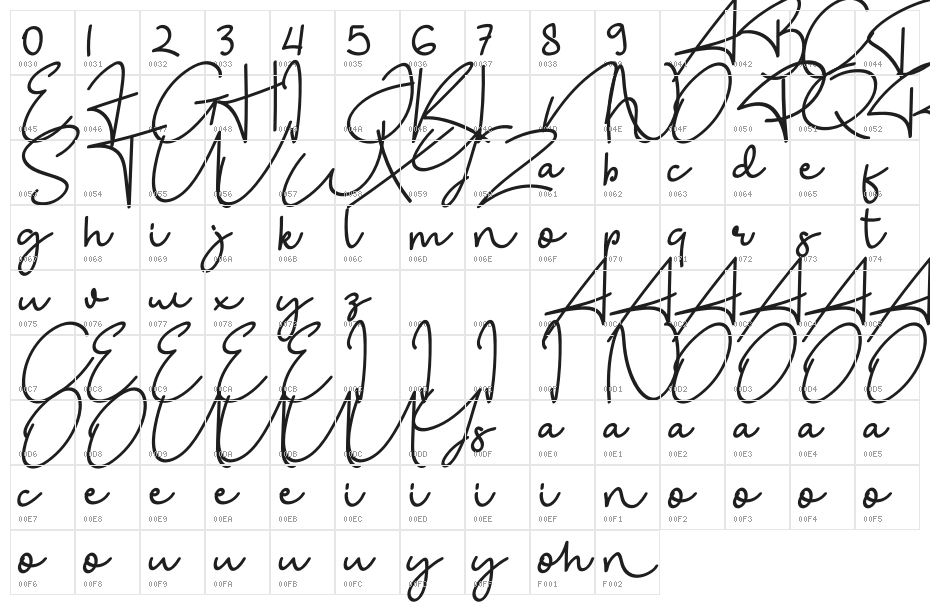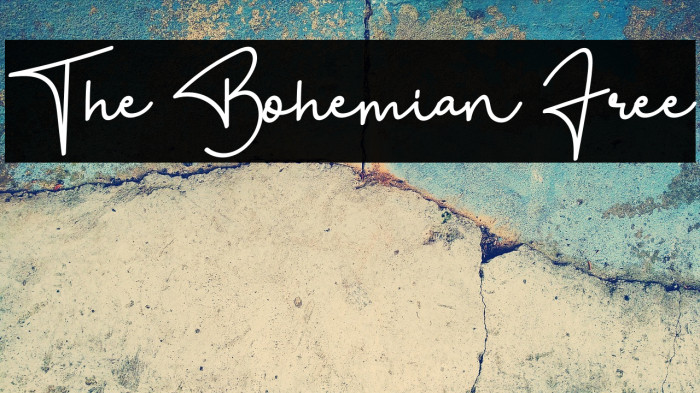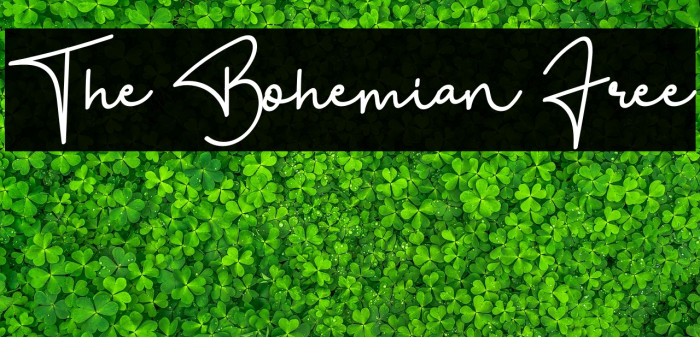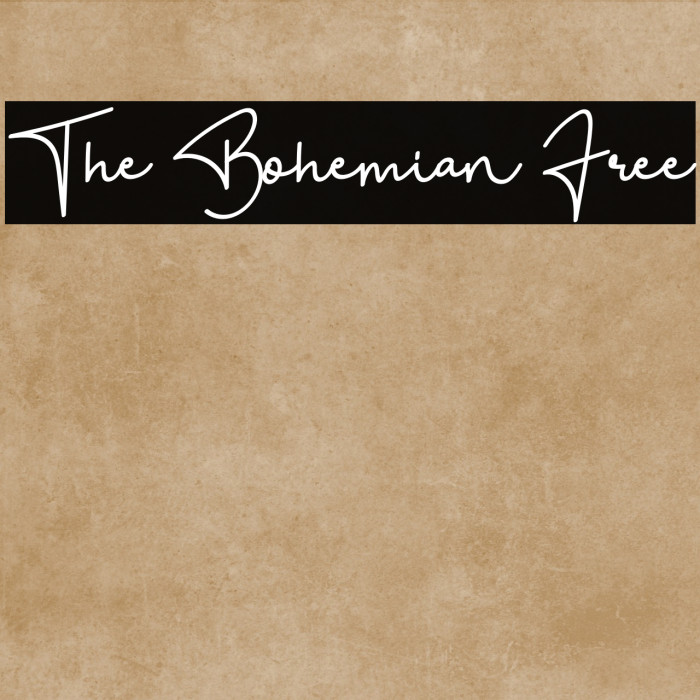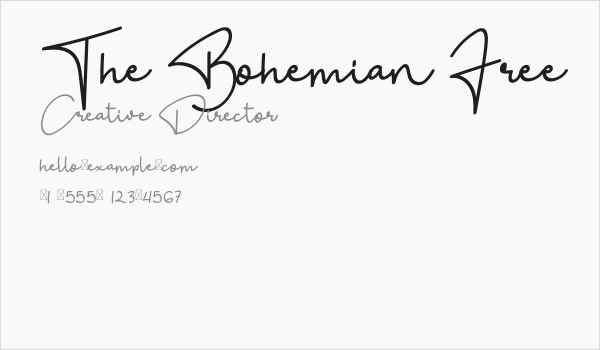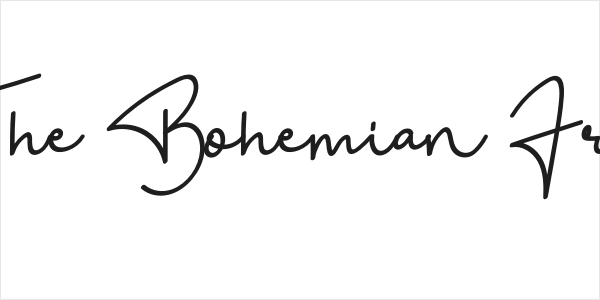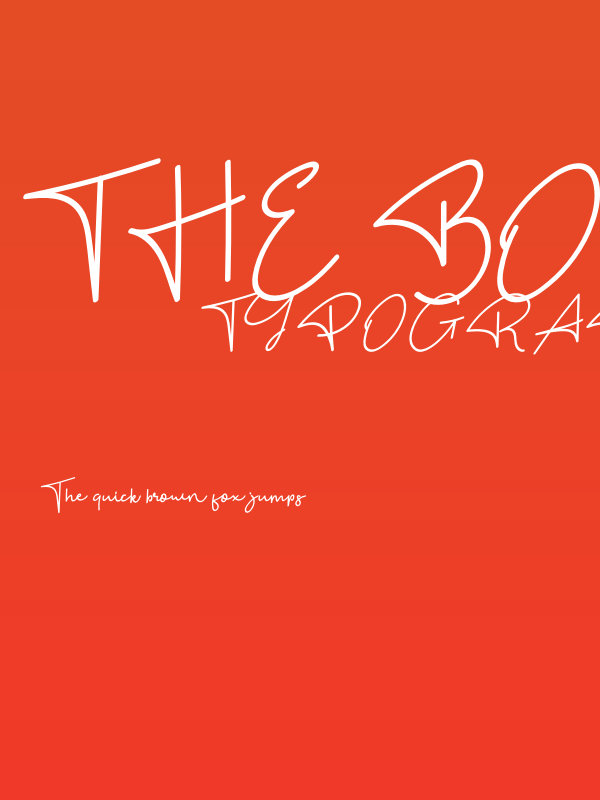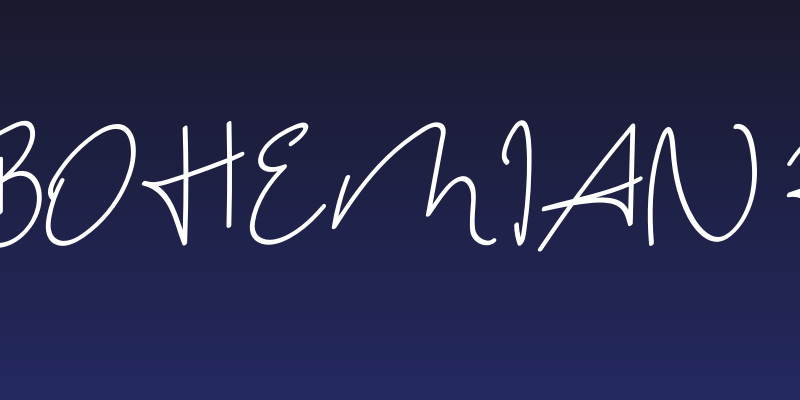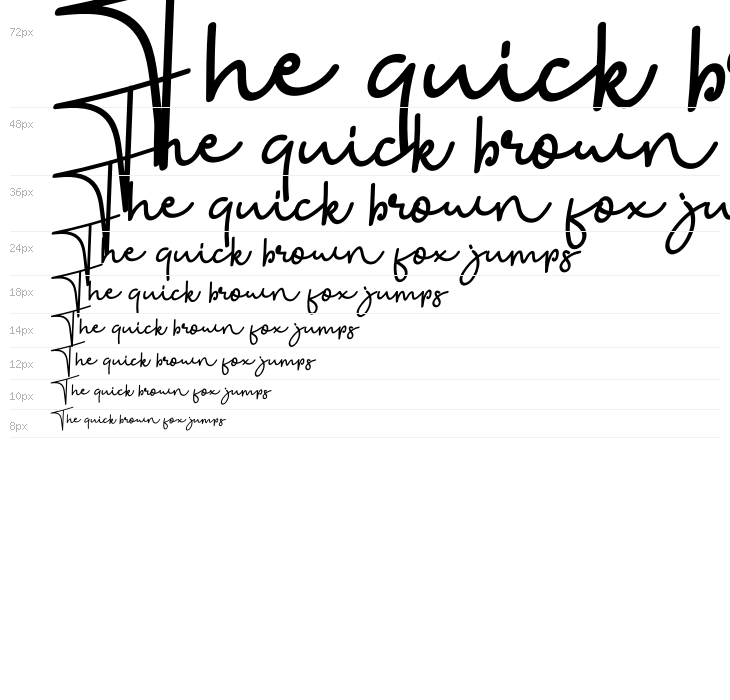
The Bohemian Free Font
The Bohemian Free Description
This font features a whimsical and free-spirited design, characterized by its flowing, cursive script. The uppercase letters are elegantly crafted with a slight slant, giving them a dynamic and lively appearance. The lowercase letters maintain a consistent style, with smooth curves and loops that enhance readability while retaining a playful aesthetic. The numerals are bold and clear, ensuring they stand out in any composition. The overall design is reminiscent of handwritten notes, making it perfect for projects that require a personal touch. The absence of special characters suggests a focus on simplicity and elegance.
| Proposed Projects | Ideal for wedding invitations, greeting cards, personal branding, and creative projects that require a personal, handwritten touch. |